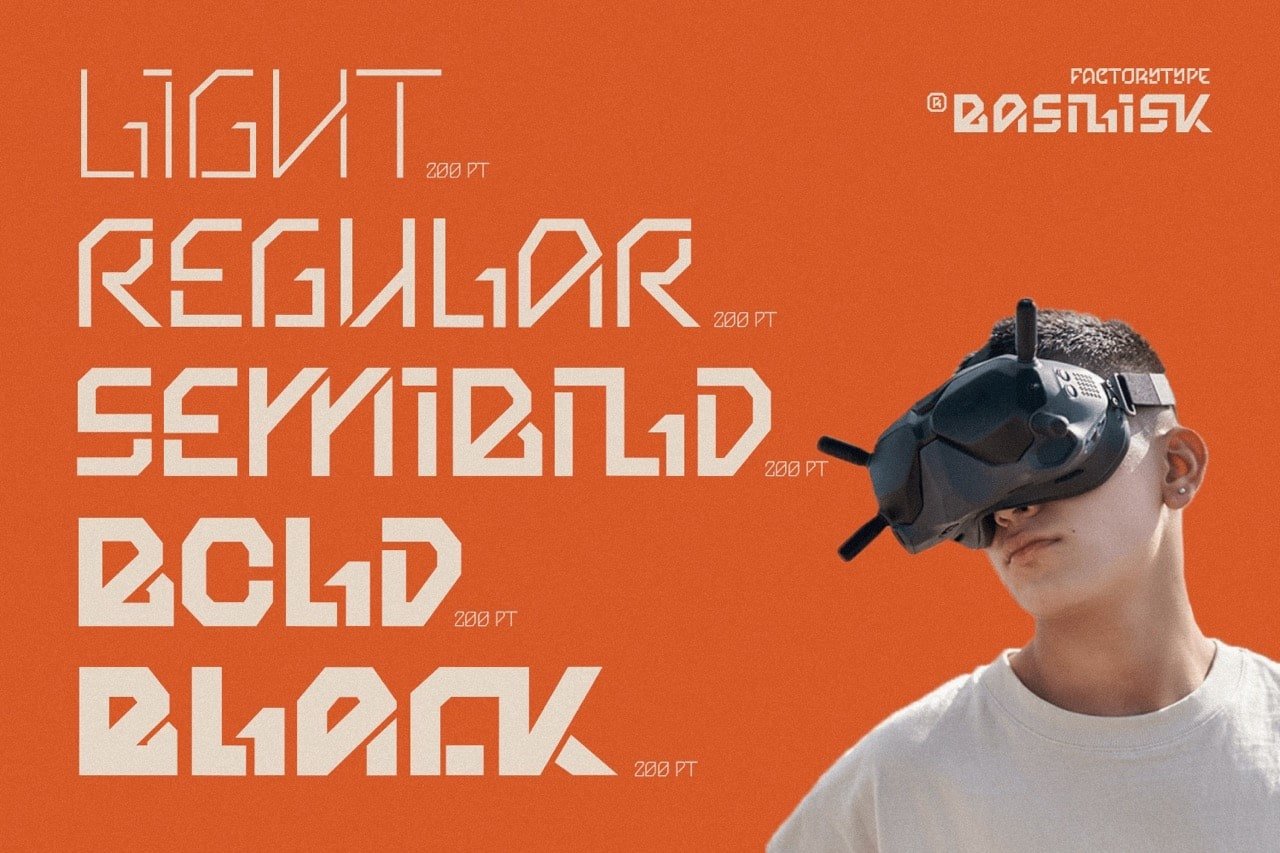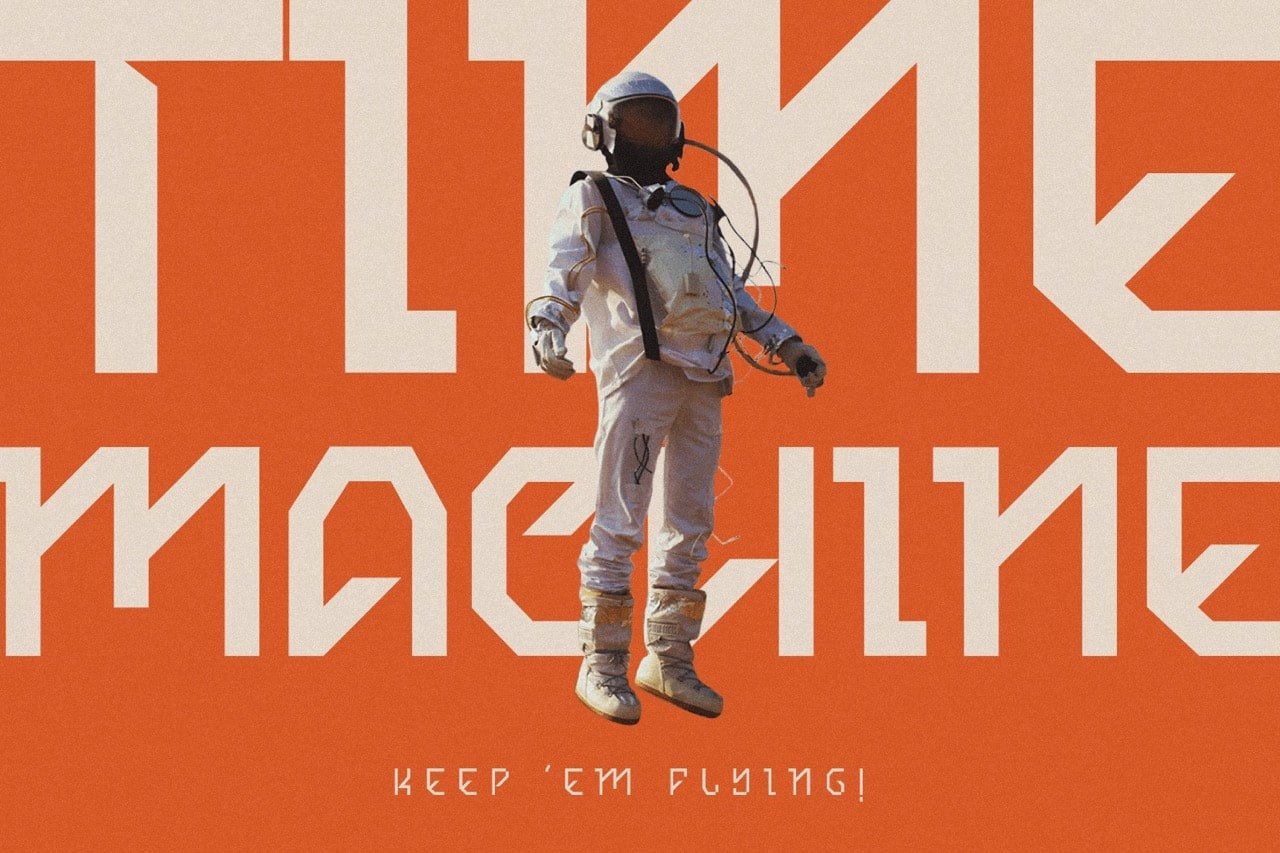
Basilisk is a futuristic and retro-inspired typeface that works well in any sci-fi space thriller. This one is for you if you like futuristic fonts. The different weights give you a lot of flexibility when it comes to choosing the right typographic color for your project. The available Ligatures and Italic styles offer a wide range of characters to give your project design an unique design.
- 5 Weights (Light, Regular, Semibold, Bold, Black)
- 2 Styles (Regular and Italic)
- Stylistic Ligatures and Alternate Glyphs
Basilisk Font